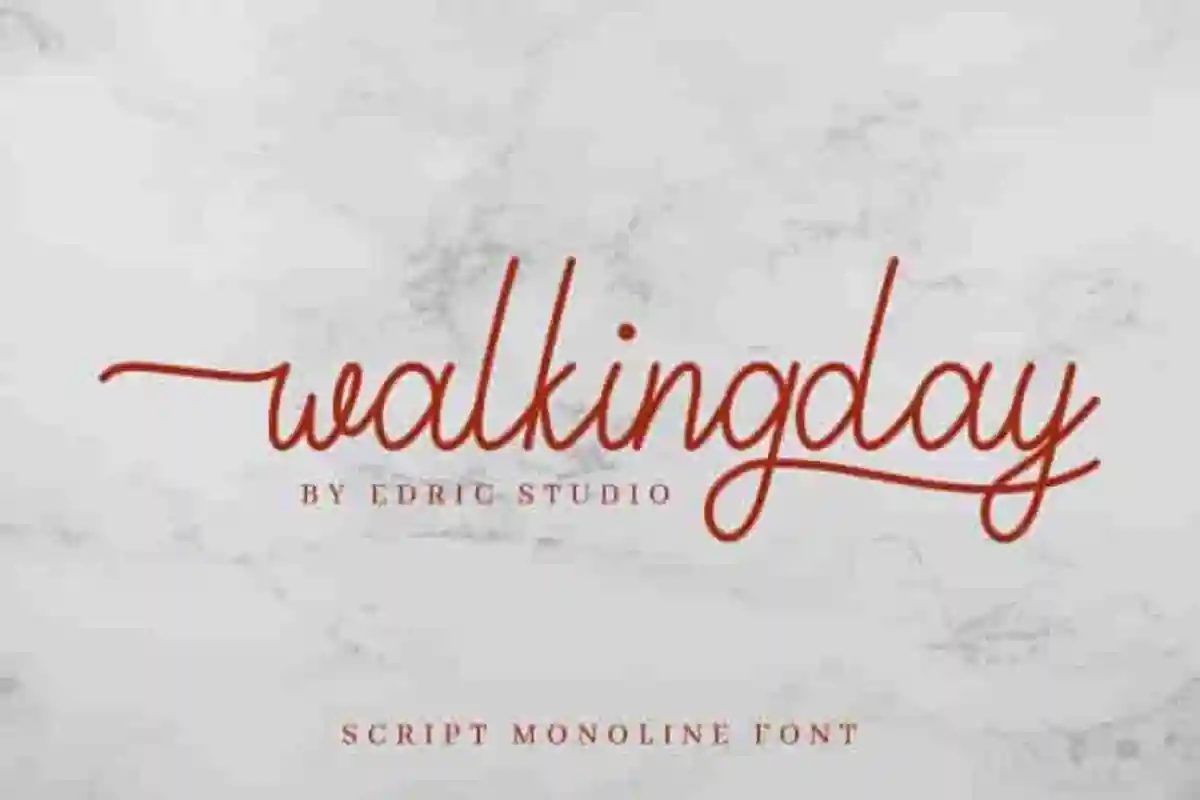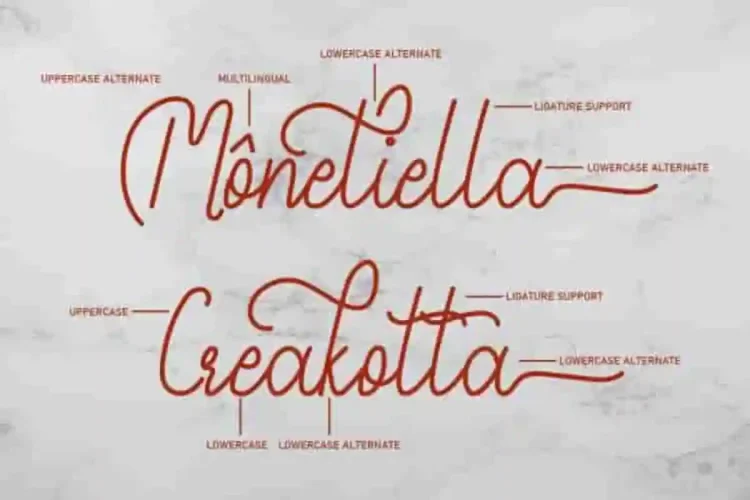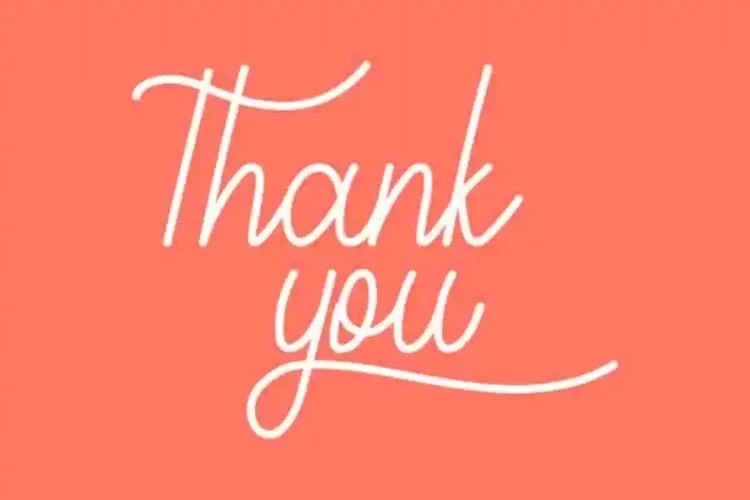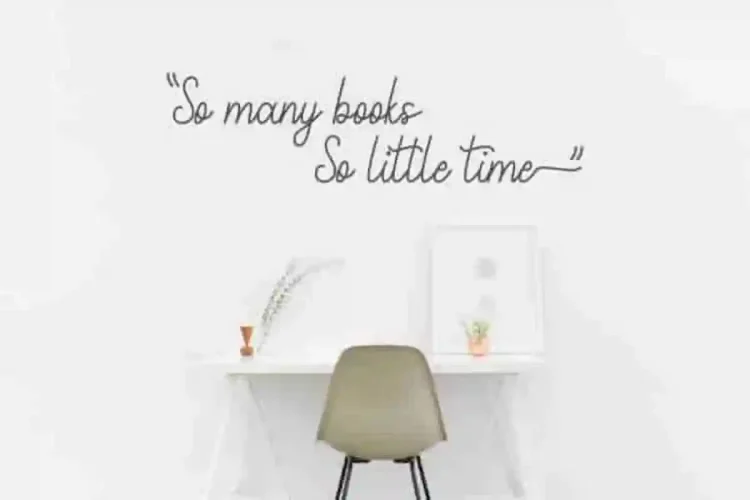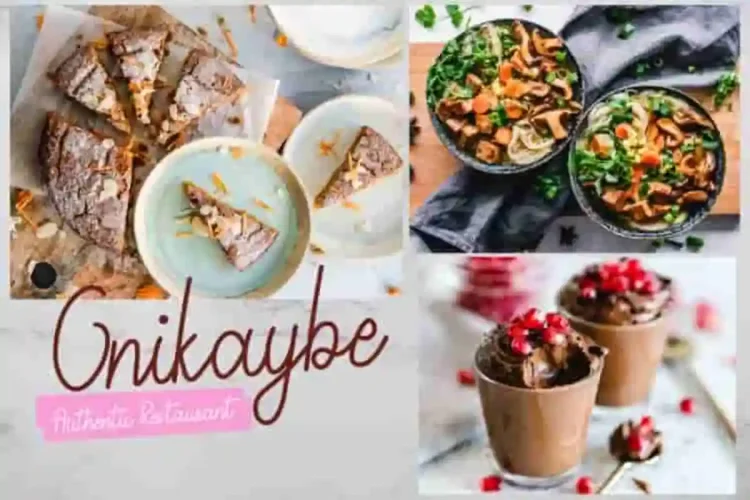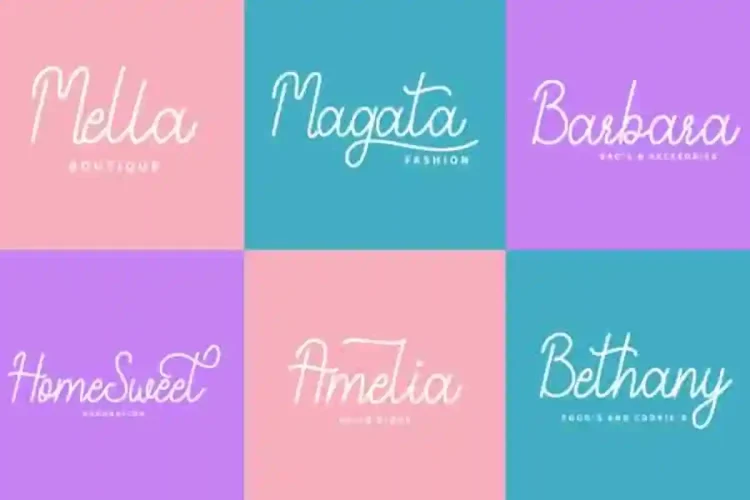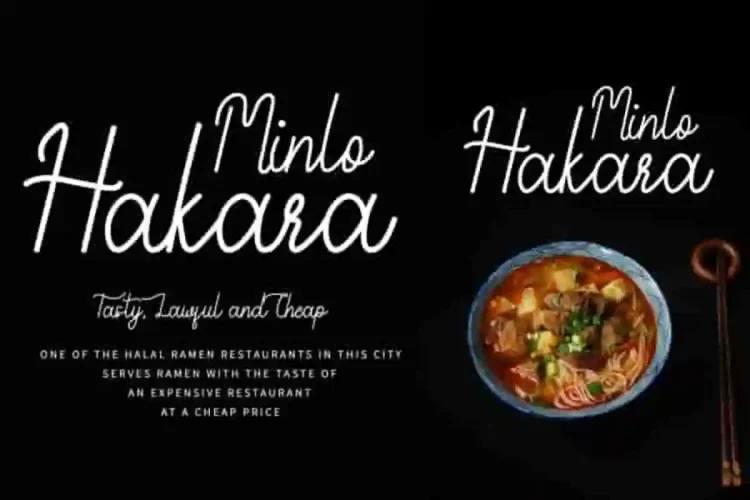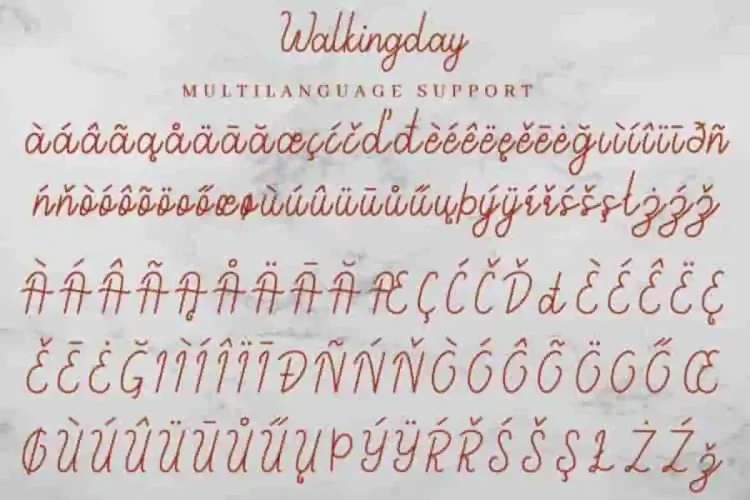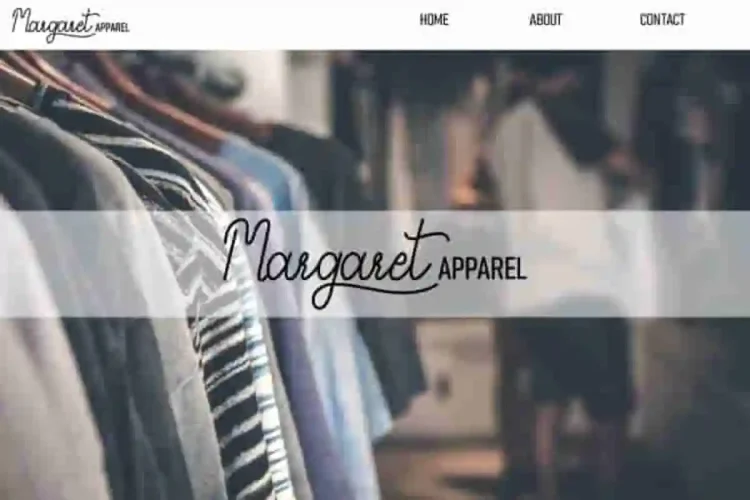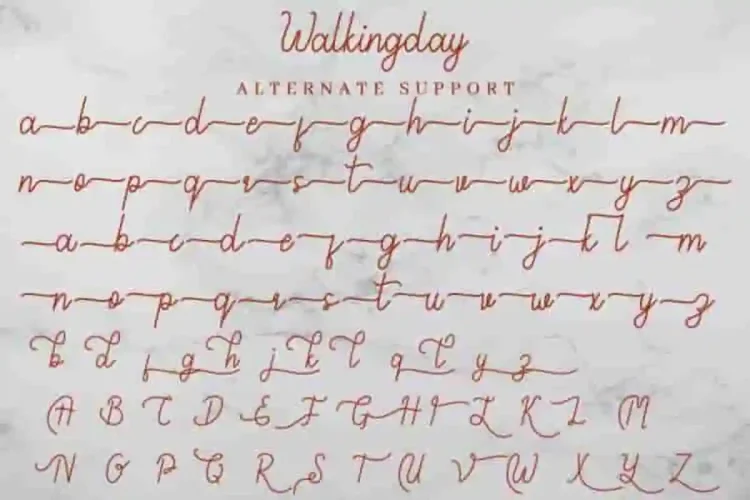
Walkingday Signature Script Font
Walkingday Signature Script Font is a signature font, handcrafted from our Studio here in, Indonesia. The designers of this beautiful tyeface is Widi and Suci.
Walkingday Signature Script Font is an exclusive signature script typeface with signature style. This font has a stunning characters set, perfectly managed with well spaced and kerning. The theme style of this font will elegant,  sophisticated, stylish, clean and classic signature style.
Walkingday Signature Script Font will be great for any projects (with extended license) including : branding, logo, stationery, business card, signage, flyer, brochure etc. Almost all industries will be match for this typeface: wedding, events, real estate, architect, law firm, florist, gardening, makeup artist, travel, hotel, musician etc.